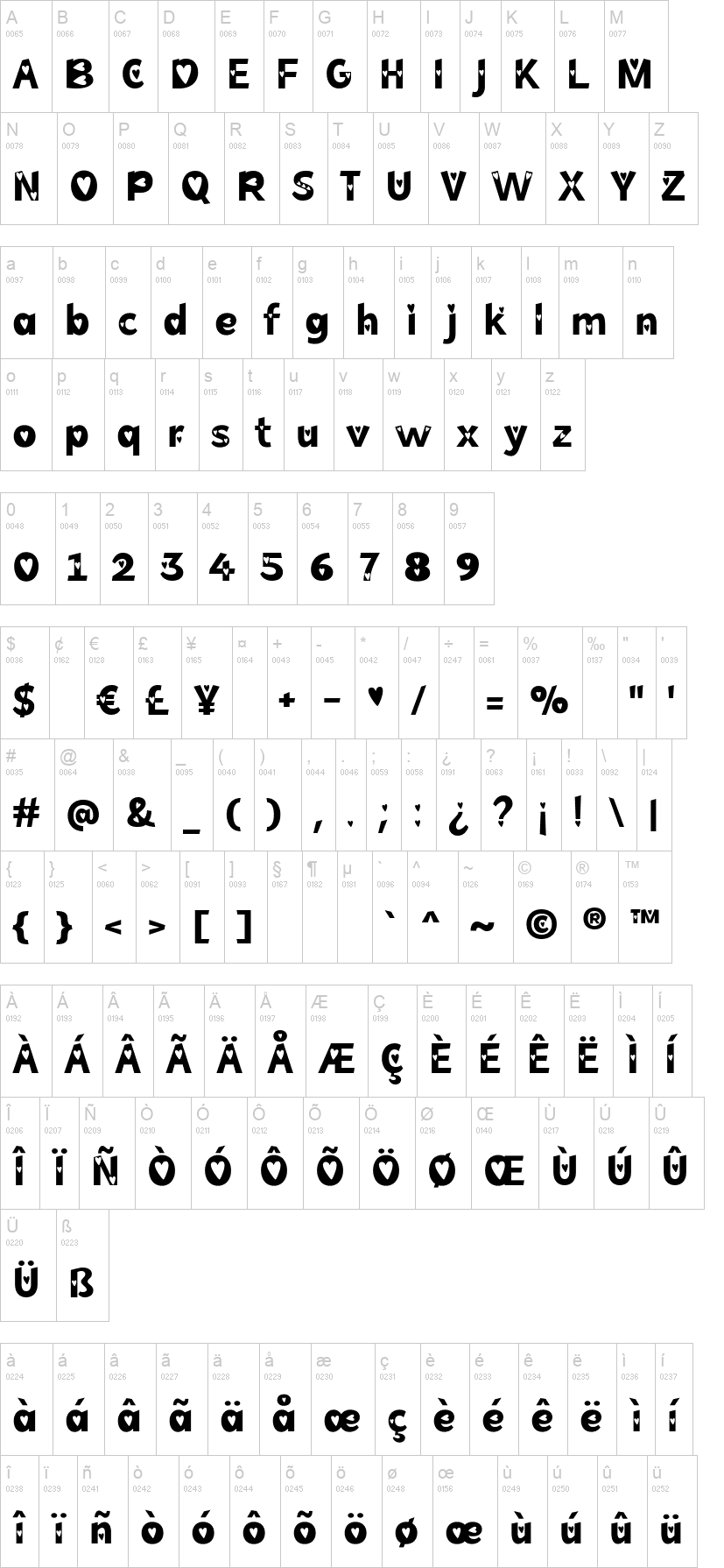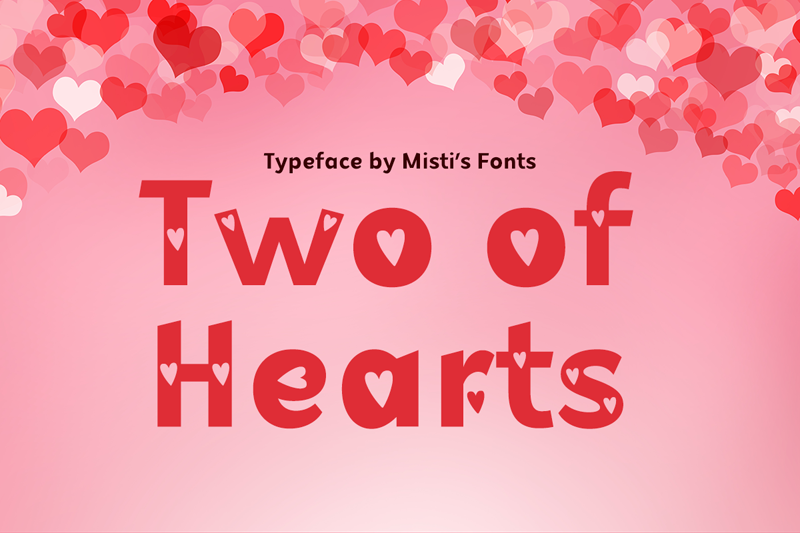
Note of the authorTwo of Hearts is a love-filled display typeface that will add so much charm to your Valentines Day projects! You can create so many awesome designs, including stickers, shirts, greeting cards, coffee mugs, tumblers, prints and anything you can imagine.